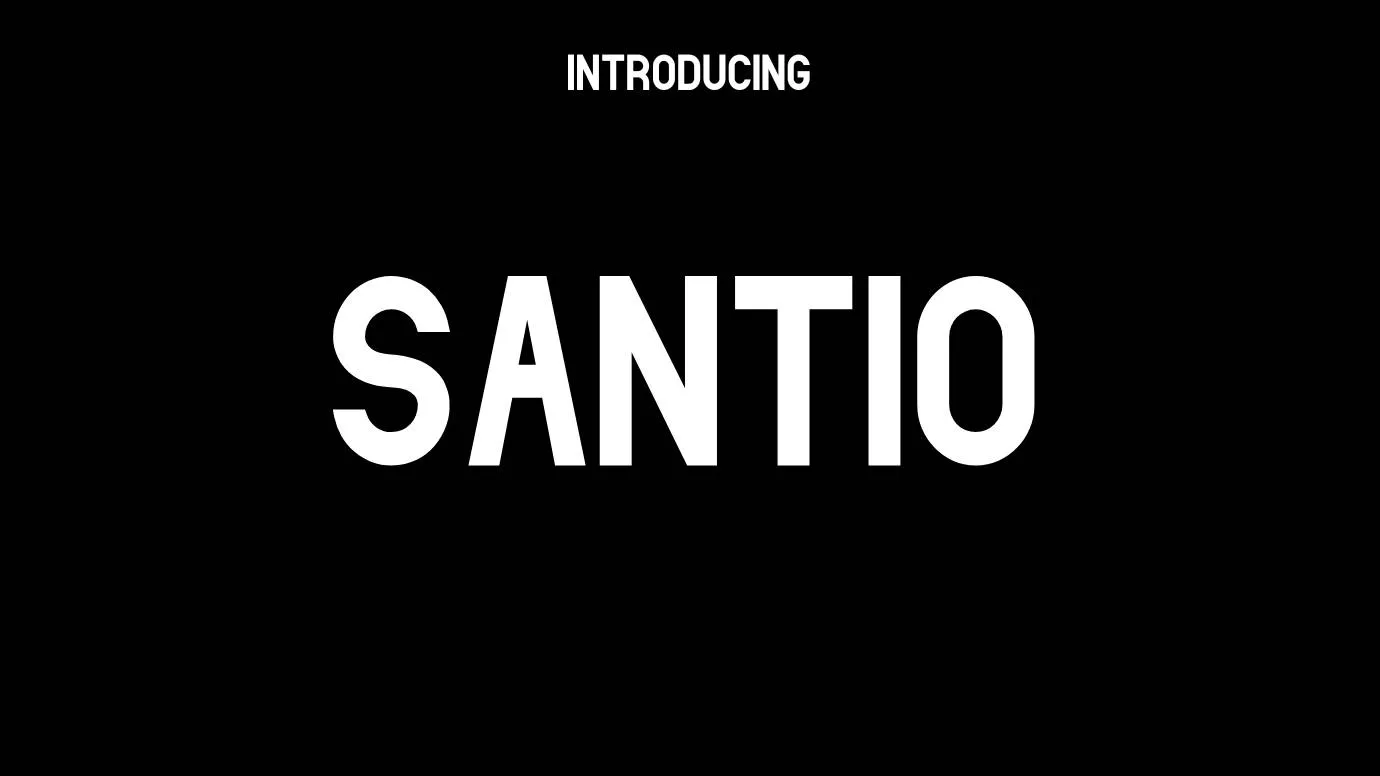
Santio Font Family comes in the sans serif family. This classic texture is a combination of both geometric & humanist grotesque. The main and original manufacturer of this typography is Kiran Uk.
This eye-catching font is also good for making pairing with altone font comes in the sans serif font family and is easily specified in CSS and HTML for different designing purposes.
Santio Font